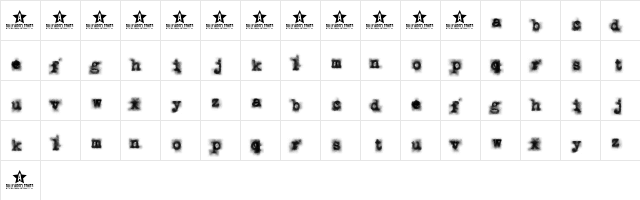
PUNKBABE Regular
Design Context for PUNKBABE Typeface
PUNKBABE is a composed and adaptable typeface that performs quietly and consistently across a wide range of design contexts.